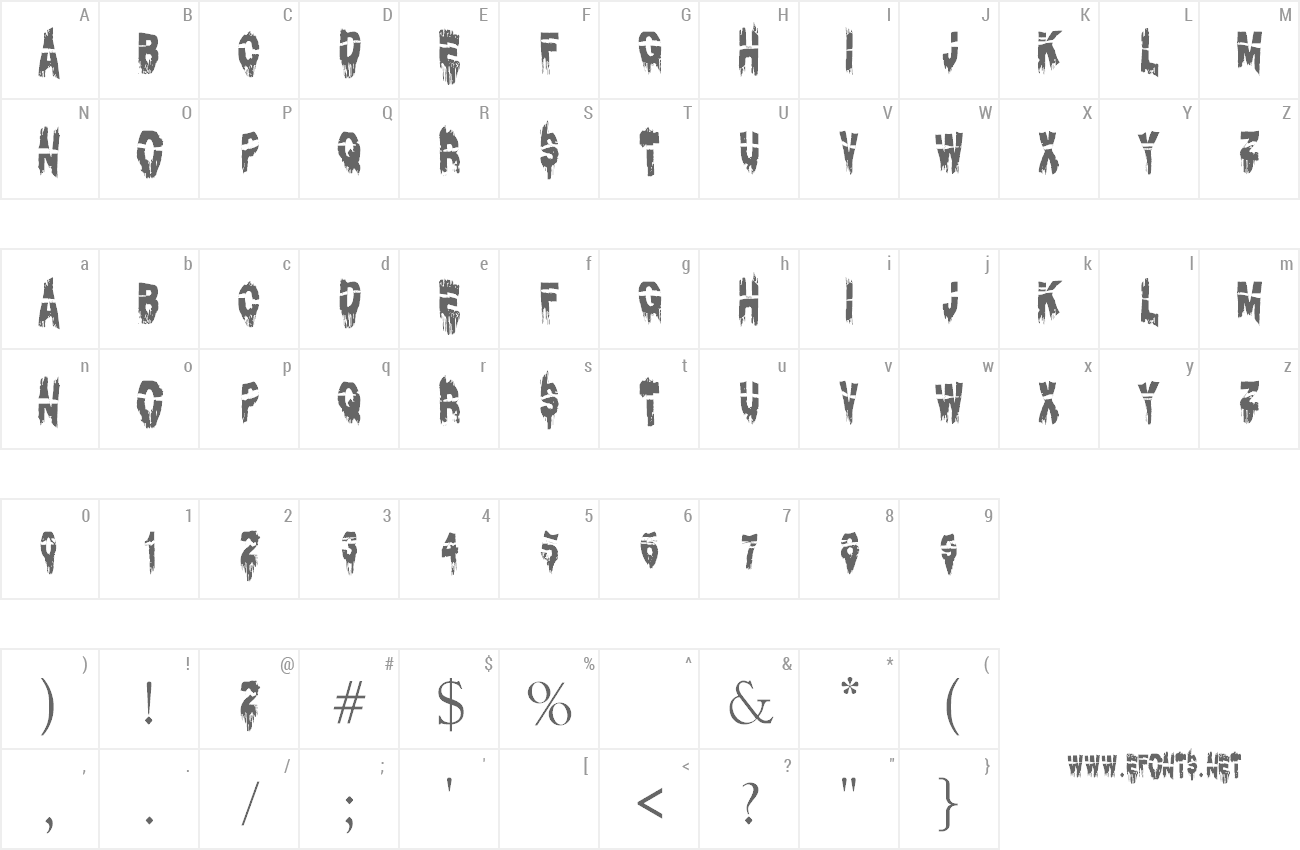
| Font name: | Diacrisis: Lost in Hell |
| Author: | Luan Prates de Souza |
| Note by Luan Prates de Souza | |
This font was created for the game called ''Diacrisis 2: Lost in Hell''. You are free to use this font in your projects, make it good use! Thanks - Luan Prates (Alucard) |